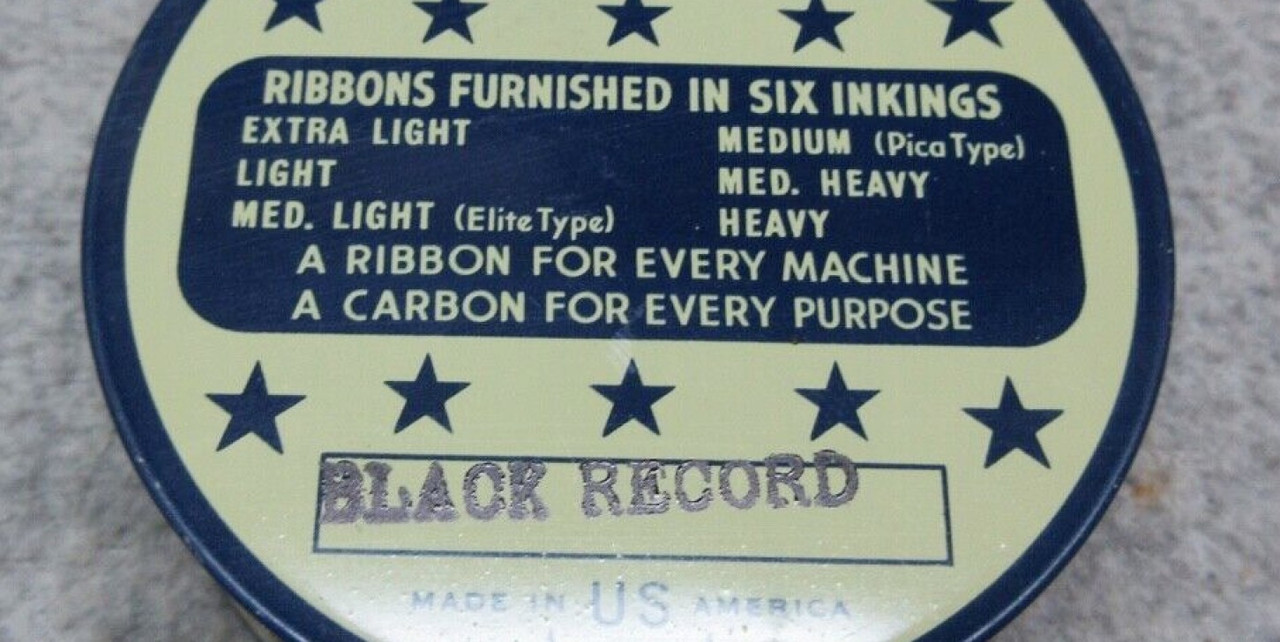
The 1.5mm Olympia typefaces are interesting (not for daily use, though). I wonder if they shipped those machines with narrower line spacing (the specimen looks like they didn't).
The 1.5mm typeface works out to 17 cpi. A Type-Pal member in the USA has an Olympia SG-1 with 1.5mm (17 cpi) and I received a letter typed on that machine. A good pair of reading glasses is a must for me to be able to read that type. However, wouldn't that have been a great machine for typing on those Aerogram letters? You would be able to get a lot of information on the 3-fold correspondence. All the best,
Looks like some ribbon suppliers even recommended a differing "inking" for Pica versus Elite type-sizes.
Given that Elite slugs are likely to foul quicker than Pica from over-inking, it was a nice option to have back when ribbon was still being produced globally, and didn't all originate from one Chinese factory (speculation).
I recently read somewhere that the Underwood-Olivetti Lettera 22 had 11 point something or other per inch type. It stuck in my memory because my first typewriter was a Lettera 22, and I remember discovering that it was neither Pica nor (standard U.S.) Elite, but somewhere between.
A lot of portables, mainly German and Japanese but not exclusively, could come with a 'compromise' type size that was not Pica (10 characters per inch) or Elite (12 characters per inch). This was called 'Continental Elite' and was 11 characters per inch. This is measured as the number of characters that would fit into a one-inch gap.